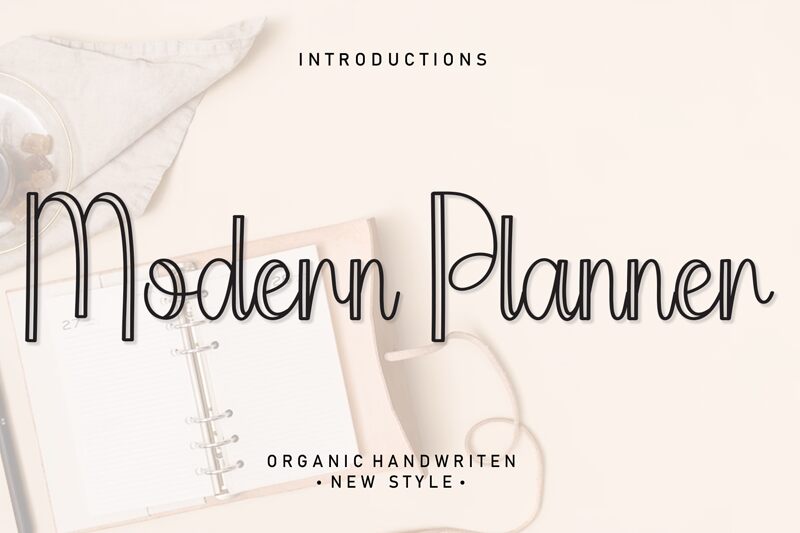
Modern Planner
Modern Planner font, designed by Scratchones, embodies a stylish blend of calligraphy and outline aesthetics. Its elegant strokes and graceful curves create an inviting yet contemporary vibe, perfect for capturing attention. The condensed design enhances its sophistication, allowing it to fit seamlessly into various layouts while maintaining an airy feel.
With its distinct visual flair, Modern Planner is ideal for invitations, branding projects, and promotional materials that seek a touch of class. Its unique character shines in both formal settings and casual designs, making it versatile enough for weddings or creative marketing campaigns. This font not only communicates messages effectively but does so with a refreshing charm that resonates across different contexts.